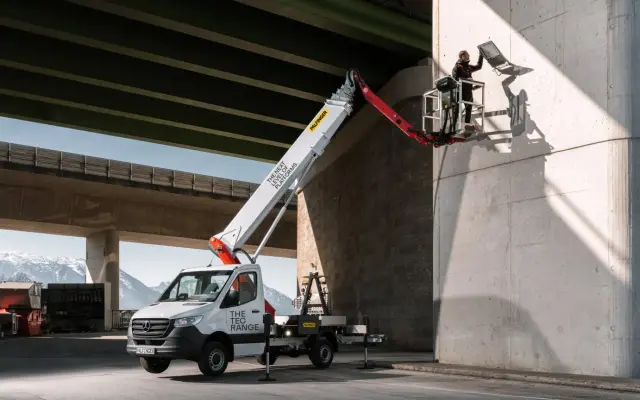
PALFINGER
Character Type · Henning Skibbe, Oleksandr Parkhomovskyy
A bespoke corporate typeface family designed for the global crane manufacturer PALFINGER, with distinct headline and text cuts optimised across Latin, Cyrillic and Greek scripts.
Created by Henning Skibbe and Oleksandr Parkhomovskyy at Character Type as part of a brand identity project led by Strichpunkt Design, the family splits into a Headline version that plays up the font's structural quirks and a Text version redrawn for legibility at smaller sizes. A defining detail is the tension between tight inner curves and wide outer curves on angled letters like f, j and r, giving the design a mechanical edge that suits PALFINGER's industrial positioning. Script coverage spans Latin Extended with Vietnamese, Cyrillic and Greek for global deployment.
The letterforms feature tight inner curves and wide outer curves with 90-degree angled terminals on letters such as f, j, r and t, pointing to a geometric sans construction with distinctive engineered character.